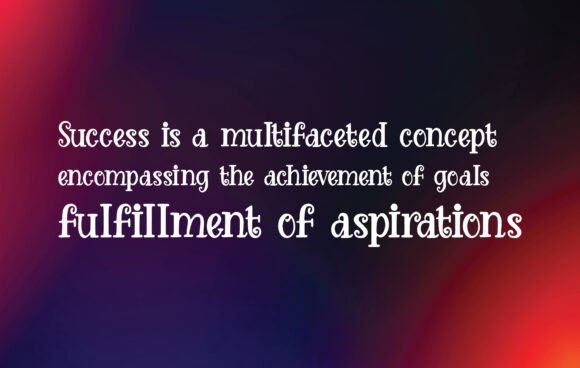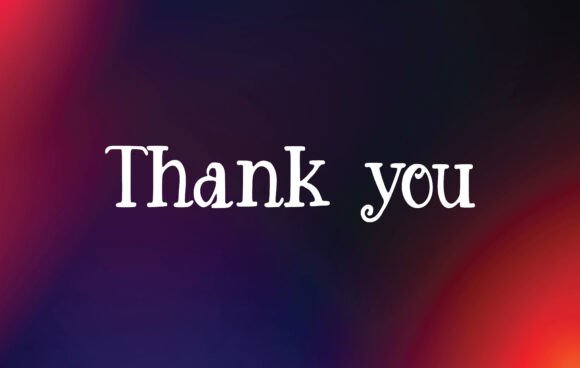
Introduction to Aziel Font
Remember that moment when a font choice suddenly brings your design to life? For designers, this is a moment of pure magic. It’s the difference between a good design and a great one. And, if you’re looking to elevate your creative projects, we have some exciting news for you! Say hello to the Aziel Font, a beautiful and elegant handwritten font that’s sure to take your designs to new heights.
Whether you’re working on a logo, branding, or quote, the Aziel Font is an excellent choice. Its high-quality design and versatility make it a valuable resource for designers of all levels. With its transparent background and free download options, you can experiment with this font without worrying about any limitations. Get ready to unleash your creativity with the Aziel Font and discover a new level of design excellence.
Key Features of Aziel Font
- High-quality design resource with a transparent background, perfect for creative projects.
- Includes a range of characters, including uppercase and lowercase letters, numbers, and special characters.
- Designed with a modern and sleek aesthetic, ideal for use in logos, branding, and other visual identities.
- Features a large character set, making it suitable for use in a variety of languages and creative projects.
Honest Review: Aziel Font
As a designer, I’ve had the opportunity to try out various design resources, and I’m excited to share my thoughts on the Aziel Font.
I downloaded the Aziel Font for free, and I must say, it’s a high-quality font that’s perfect for creative projects. The transparent background makes it easy to overlay on different images or backgrounds, giving you more flexibility in your design.
Here are some things that work well for the Aziel Font: ✨
- High-quality design with crisp, clear lines
- Transparent background for easy overlaying
- Wide range of applications, from logos to posters
However, I did notice a few limitations: ⚠️
- Only available in a limited range of weights
- No extensive character set, which may limit its use for certain languages
Overall, I’m impressed with the Aziel Font. While it may not be perfect, it’s a great addition to any designer’s toolkit. Its high-quality design and transparent background make it a valuable resource for creative projects.
The Aziel Font is a high-quality, free design resource ideal for creative projects. It features a transparent background and a clean, modern design.
Getting the Most Out of Aziel Font
For best results, use the Aziel Font in conjunction with other high-quality design elements.
Experiment with different font sizes and colors to add visual interest to your design.
The Aziel Font is ideal for use in creative projects such as:
Brochures and flyers
Business cards and letterheads
Web design and e-commerce websites
What is the recommended usage for the Aziel Font?
The Aziel Font is designed for use on digital platforms, including websites, social media, and mobile apps. It’s also suitable for print materials, such as business cards, brochures, and posters. To ensure optimal results, we recommend using the Aziel Font with a transparent background, as it’s designed to be highly legible and visually appealing in various design contexts.